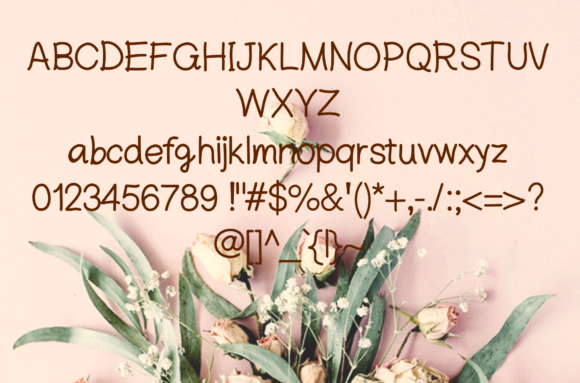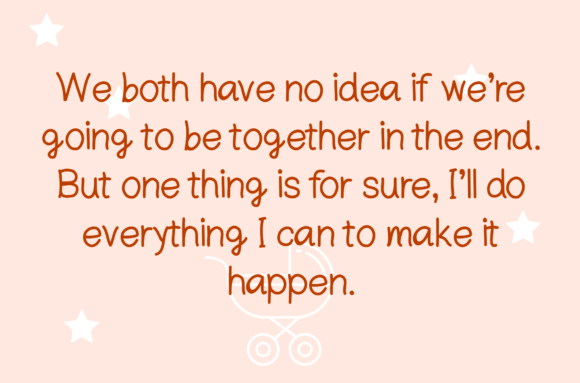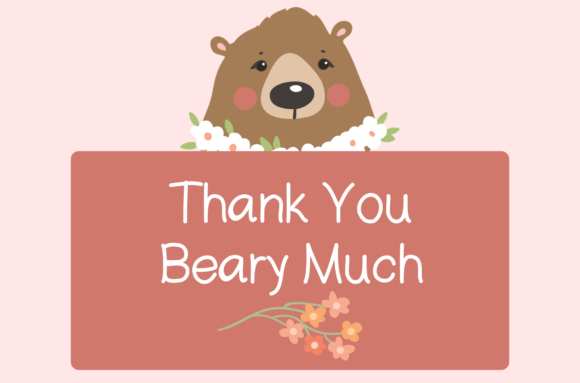
Discover the Heaven Font: Elevate Your Designs with a Sweet and Natural Handwritten Style
Are you on the hunt for a font that can add a touch of warmth and personality to your designs? Look no further than the Heaven Font, a beautiful handwritten font that is sure to make your creative projects stand out. With its friendly feel and versatile nature, this font is perfect for a wide range of contexts, from crafting and DIY projects to branding and marketing materials.
The Characteristics of Heaven Font
Heaven Font is a sweet and natural handwritten font that boasts a unique and charming aesthetic. Its friendly feel makes it incredibly approachable and relatable, allowing your audience to connect with your message on a deeper level. The font’s natural, handcrafted look gives it a sense of authenticity and warmth, making it perfect for designs that require a personal touch.
One of the standout features of Heaven Font is its versatility. Whether you’re working on a creative project, crafting a marketing campaign, or simply looking to add some personality to your social media posts, this font is sure to deliver. Its clean and elegant lines make it easy to read, while its unique character ensures that it will stand out from the crowd.
Uses for Heaven Font
So, what can you use Heaven Font for? The possibilities are endless! Here are just a few ideas to get you started:
- Crafting and DIY projects: Add a personal touch to your crafting and DIY projects with Heaven Font. Use it to create custom labels, signs, and other decorative elements that showcase your unique style.
- Branding and marketing materials: Use Heaven Font to create eye-catching branding and marketing materials, such as business cards, brochures, and social media graphics.
- Stationery and invitations: Create beautiful stationery and invitations with Heaven Font. Its elegant and sophisticated look makes it perfect for special occasions, such as weddings and baby showers.
- Blogging and website design: Add a touch of personality to your blog or website with Heaven Font. Use it to create headings, titles, and other design elements that showcase your unique style.
Tips for Using Heaven Font
Here are a few tips for using Heaven Font in your designs:
- Pair it with complementary fonts: Heaven Font pairs well with a variety of fonts, including serif and sans-serif fonts. Experiment with different combinations to find the perfect look for your design.
- Use it in moderation: While Heaven Font is beautiful, it’s best to use it in moderation. Use it to create headings, titles, and other design elements, but avoid overusing it in your design.
- Experiment with colors and textures: Heaven Font looks great in a variety of colors and textures. Experiment with different combinations to find the perfect look for your design.
In conclusion, Heaven Font is a beautiful and versatile handwritten font that is perfect for a wide range of contexts. Its friendly feel and natural, handcrafted look make it incredibly approachable and relatable, while its clean and elegant lines ensure that it will stand out from the crowd. Whether you’re a designer, crafter, or simply someone looking to add some personality to your creative projects, Heaven Font is sure to deliver.